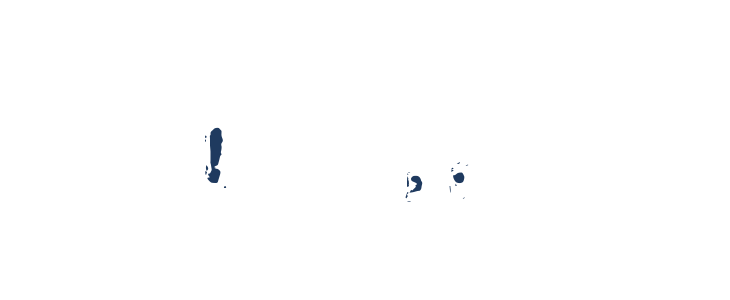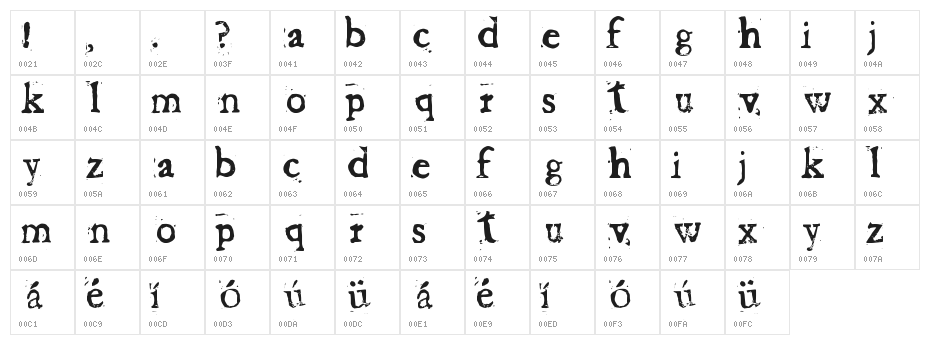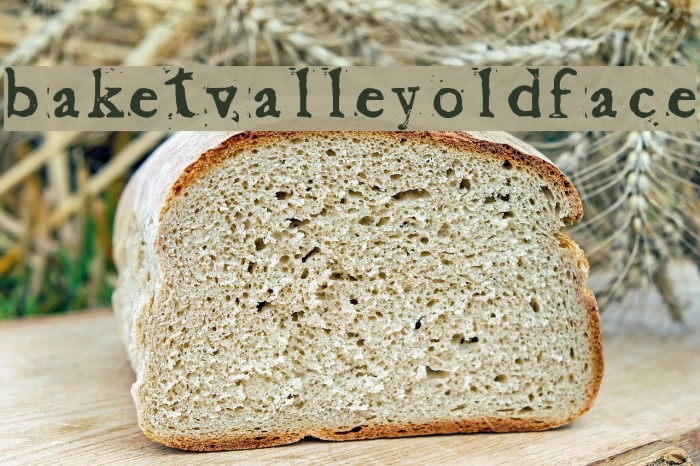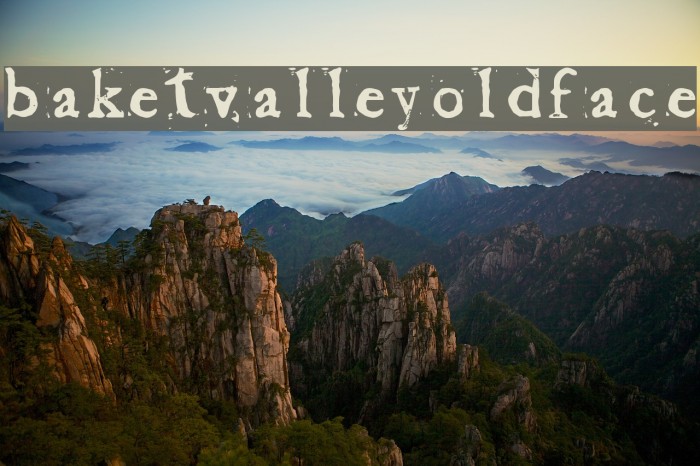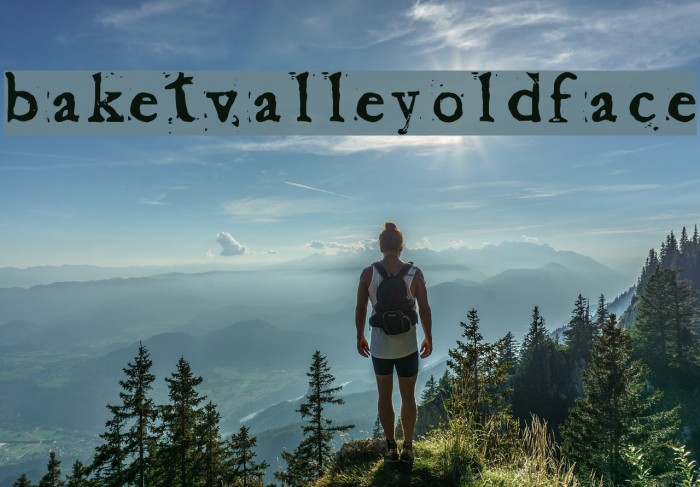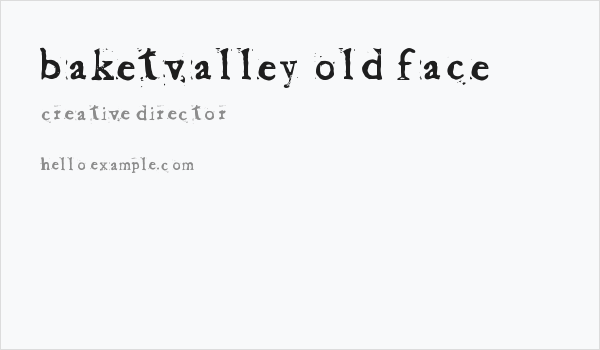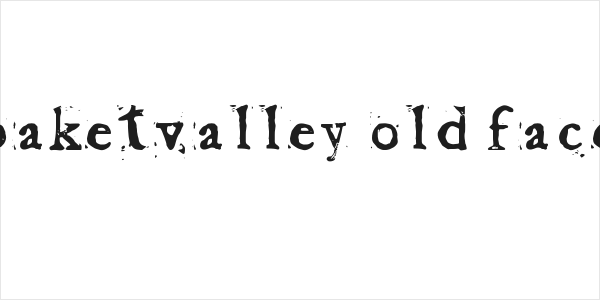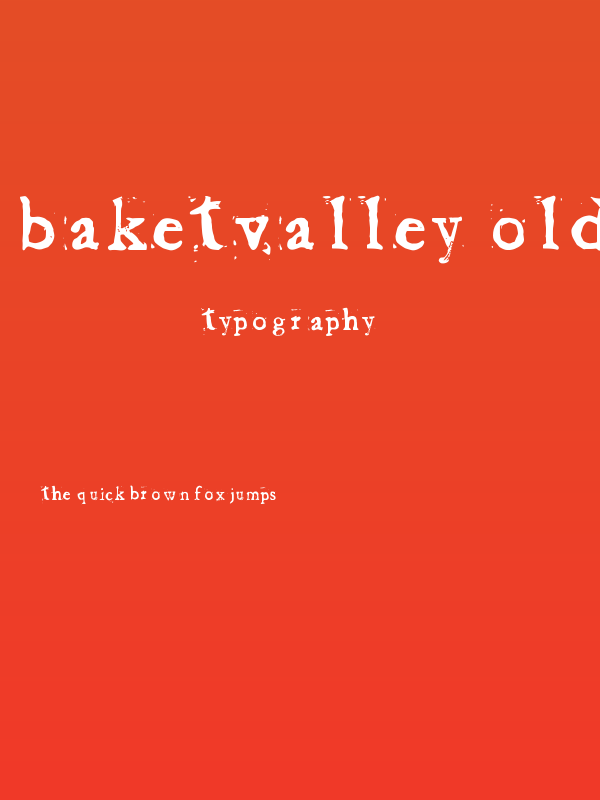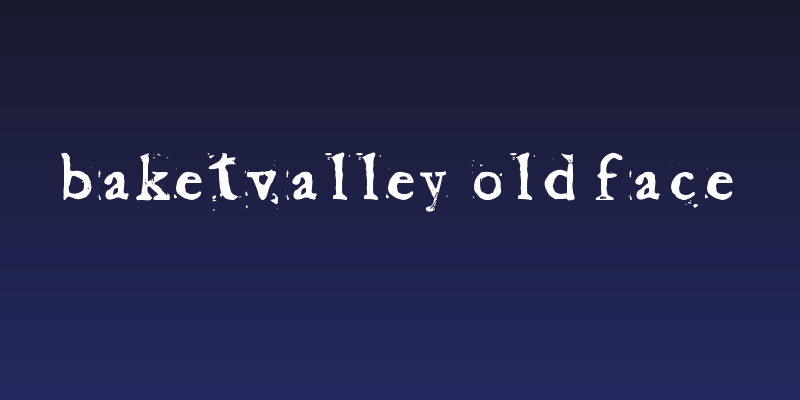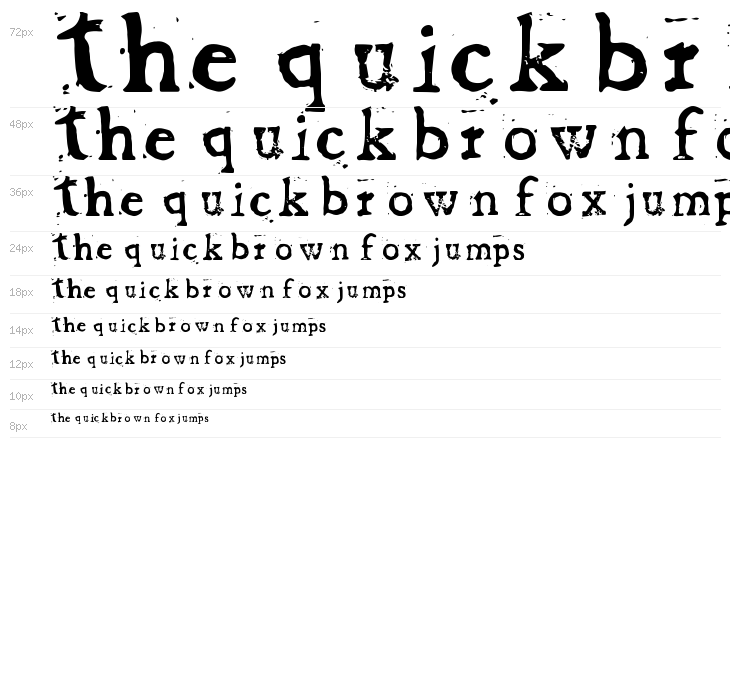
Baketvalley Old Face Font
Baketvalley Old Face Description
This font exudes a vintage and distressed aesthetic, reminiscent of old typewriter or letterpress styles. The characters have a rough, textured appearance, with irregular edges and a slightly worn look, giving it an authentic, aged feel. The uppercase and lowercase letters maintain a consistent style, with a moderate contrast between thick and thin strokes. The font's unique character is further enhanced by its uneven baseline and varied letter heights, adding to its charm and appeal. The special characters, such as punctuation marks, also carry the same distressed look, making it suitable for projects that require a touch of nostalgia or a handcrafted vibe.
| Proposed Projects | Ideal for vintage-themed designs, posters, book covers, and branding that seeks an antique or handcrafted look. |